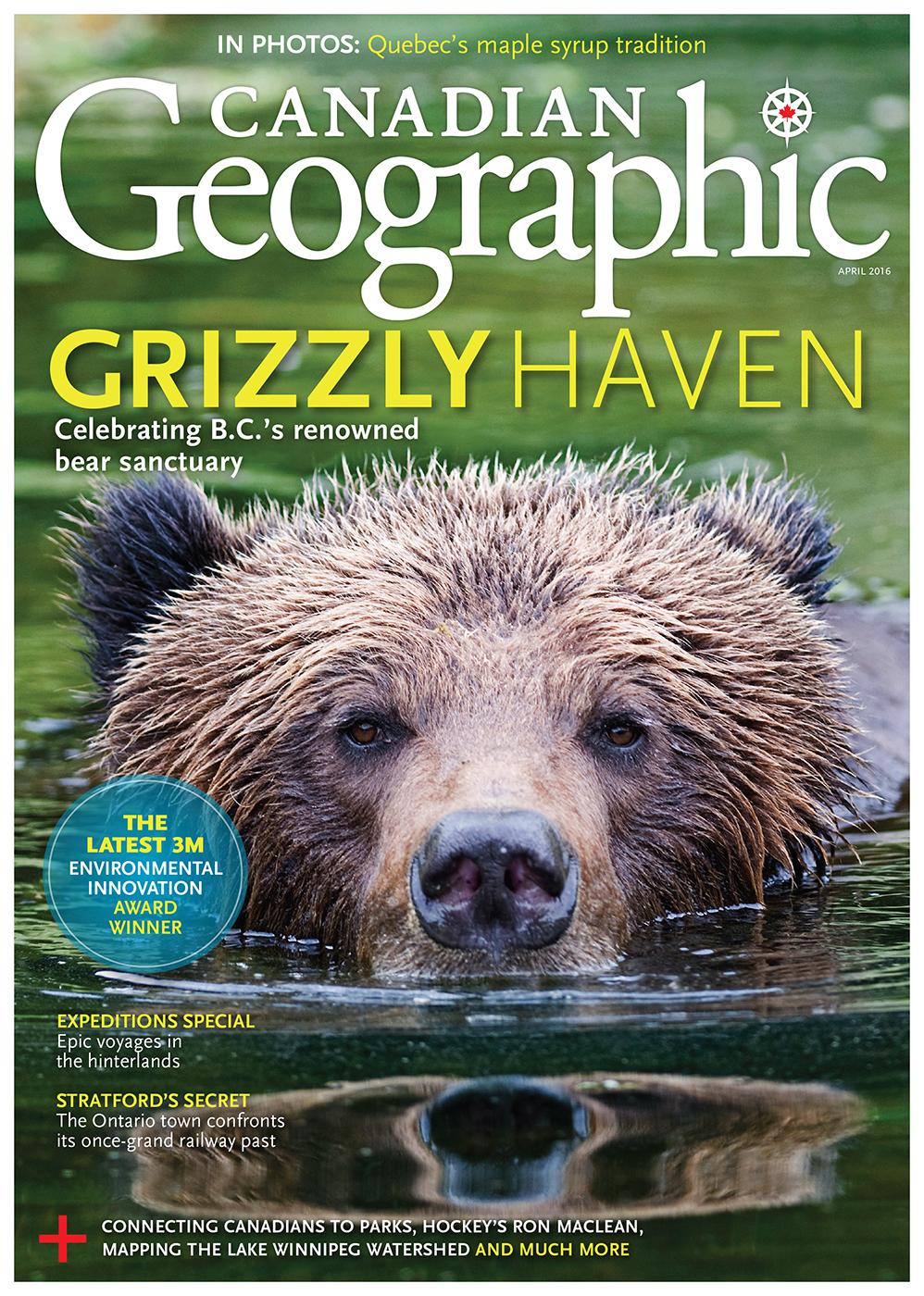
Canadian Geographic Font
BookCanadian Geographic is a magazine published by the Royal Canadian Geographical Society, a non-profit organization dedicated to promoting the understanding and appreciation of geography and the environment in Canada. The magazine features articles on a wide range of topics related to geography, including natural history, environmental issues, culture, and exploration.
The magazine's logo is written in Adobe Garamond Regular. Ge, gr, and hi were carefully crafted as special ligatures to give the logo a distinctive appearance.